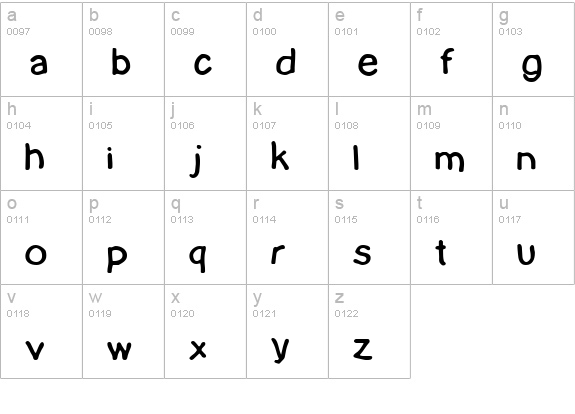
Lamebrain BRK Font Details
Introducing Lamebrain BRK, a captivating font that exudes a perfect blend of modernity and quirkiness. This unique typeface captures attention with its bold and distinctive letterforms, making it a must-have for designers looking to add a touch of personality to their projects. Lamebrain BRK's design is characterized by its playful curves and unconventional angles, creating a visually stunning aesthetic that stands out from the crowd. Whether used for headlines, logos, or display purposes, this font effortlessly brings a sense of fun and creativity to any design. But what makes Lamebrain BRK even more appealing is that it is completely free! Yes, you read that right. This fantastic font is freely available for download at FontsMarket.com, allowing designers of all levels to access its captivating charm without breaking the bank. With Lamebrain BRK, you can unleash your creativity without any limitations. Its versatility makes it suitable for a wide range of design projects, from branding and advertising to social media graphics and more. Let your imagination run wild as you explore the endless possibilities that this font has to offer. So why wait? Dive into the world of Lamebrain BRK and let its captivating design elevate your designs to new heights. Download it for free today at FontsMarket.com and experience the joy of adding a touch of whimsy to your creative endeavors.